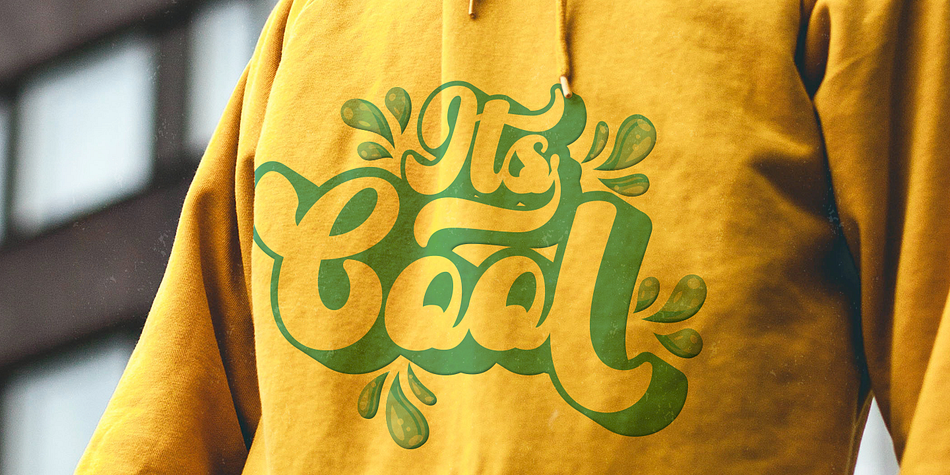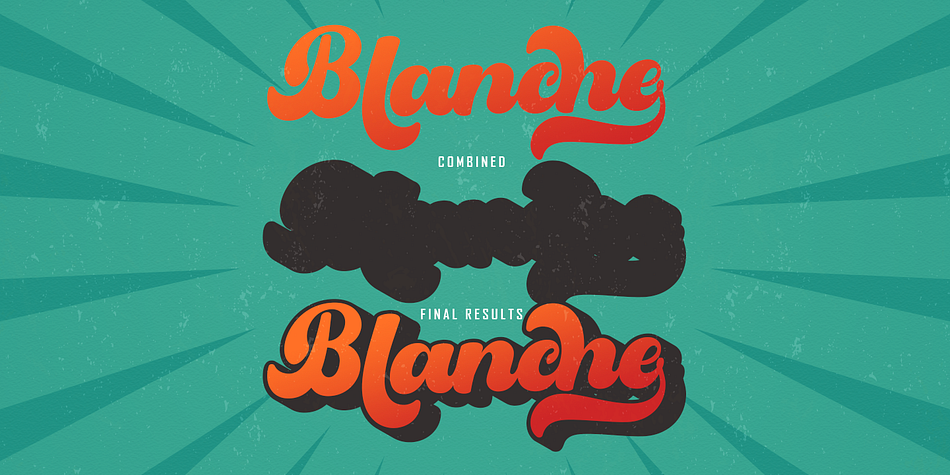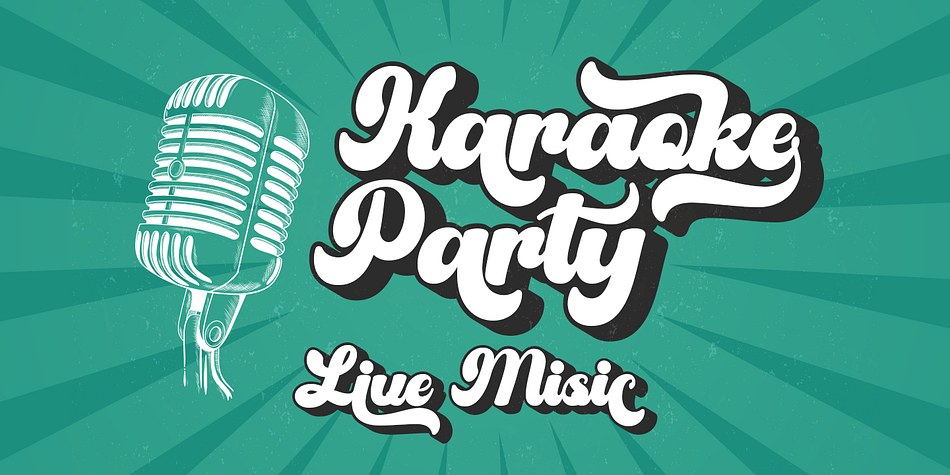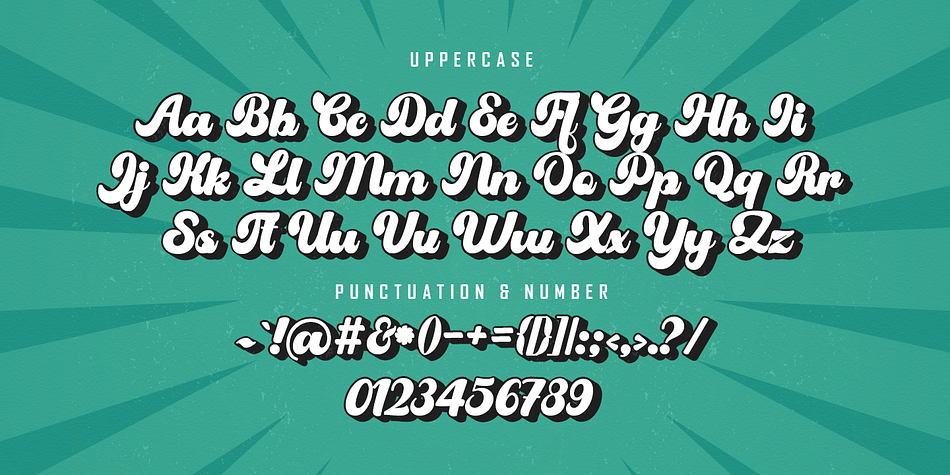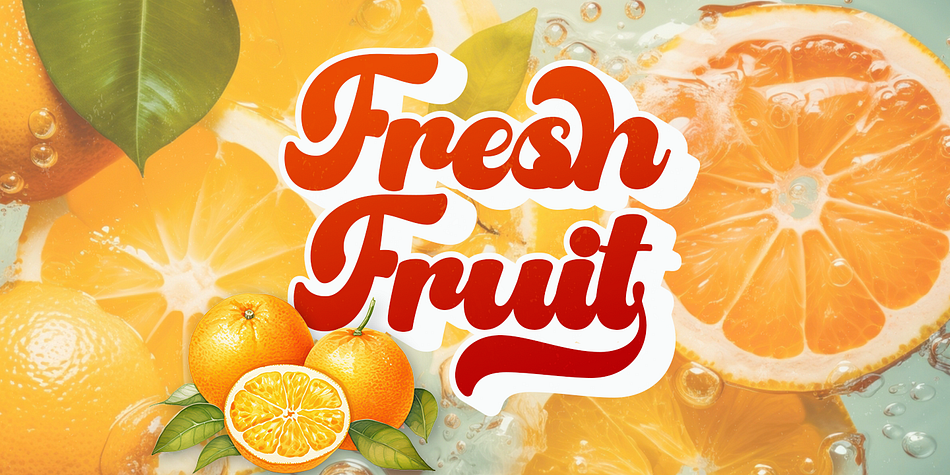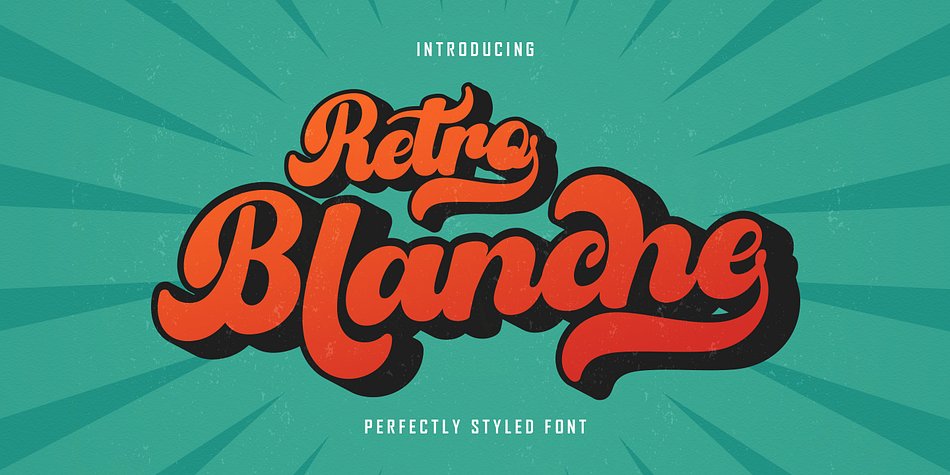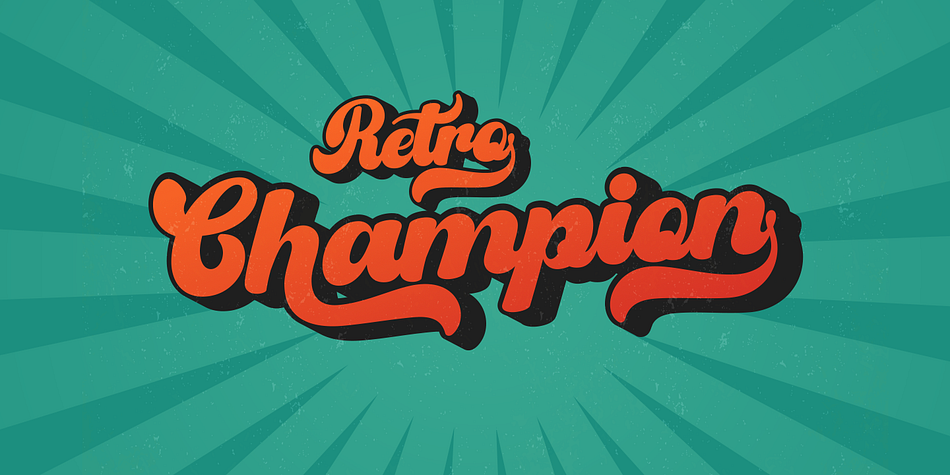
Blanche
Blanche is a brush script and retro font family. This typeface has two styles and was published by Pista Mova.
Retro Blanche is a hand-drawn, retro script font. This font is perfect for all your fun designs!
Use Blanche to create logos, branding, stickers, shirts, signs, posters, quotes, instagram posts, procreation designs and more!
Includes shadow/extrude versions that are perfectly sized to fit Retro Blanche Regular - so you can layer both fonts easily!
Retro Blanche Regular
Retro Blanche Extrude